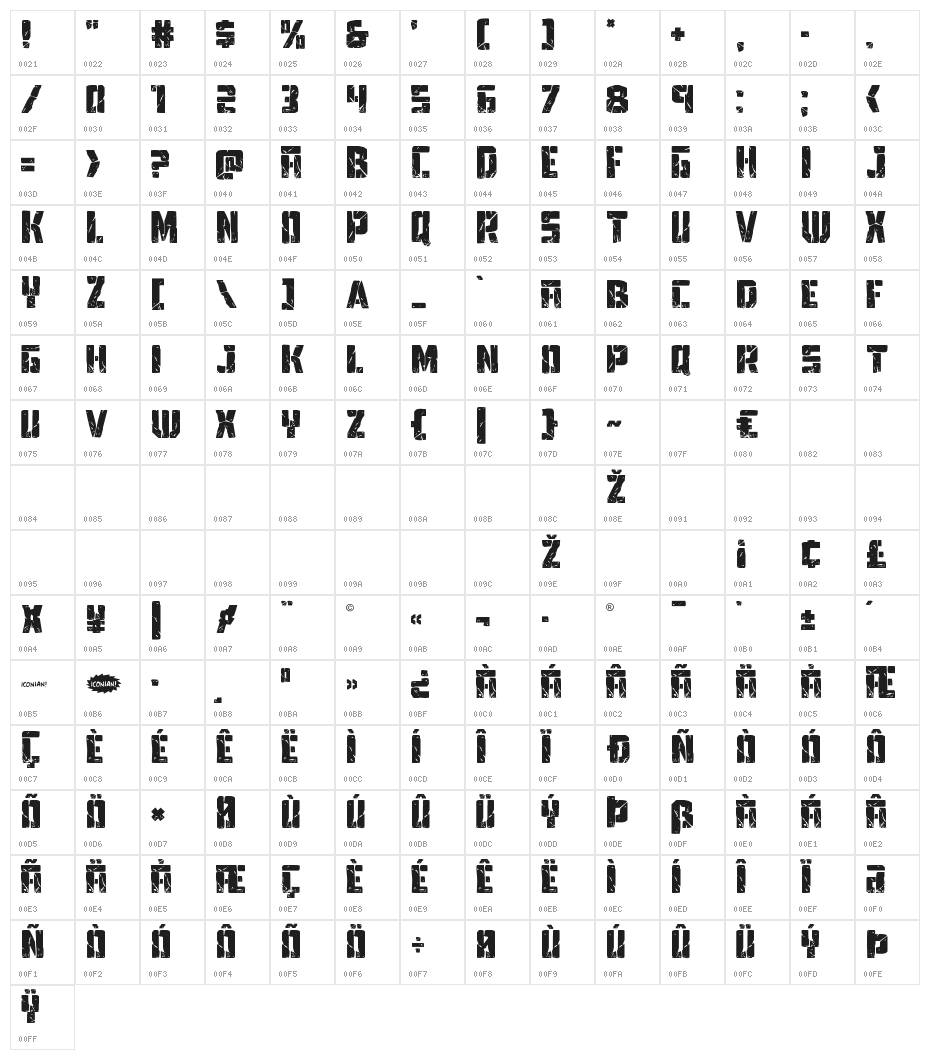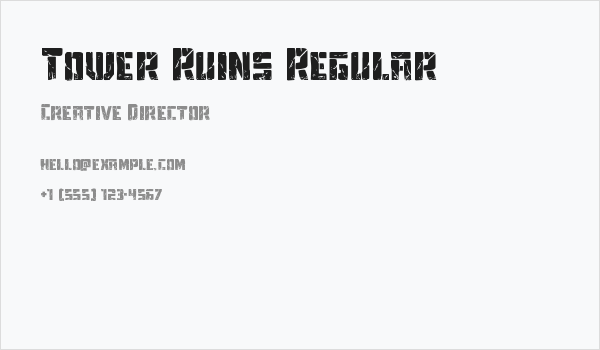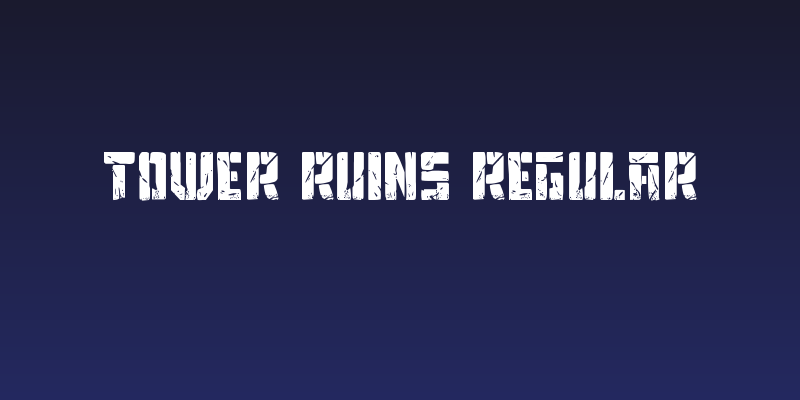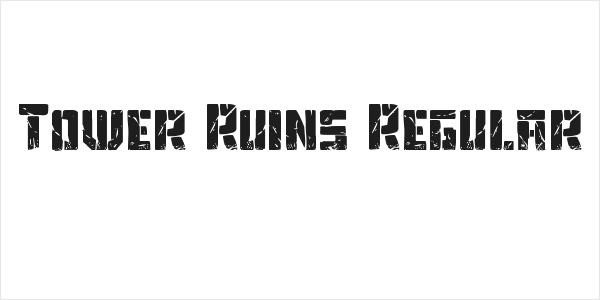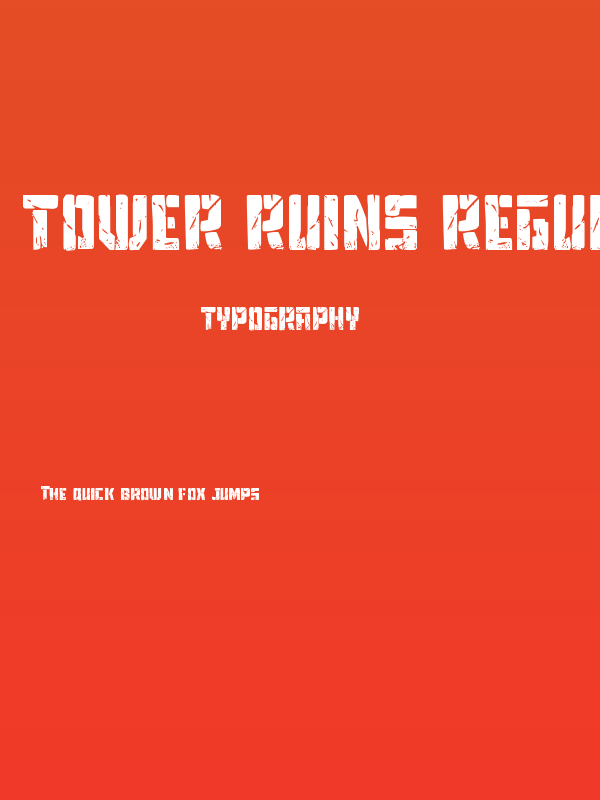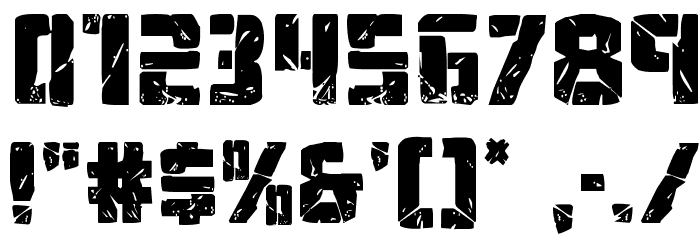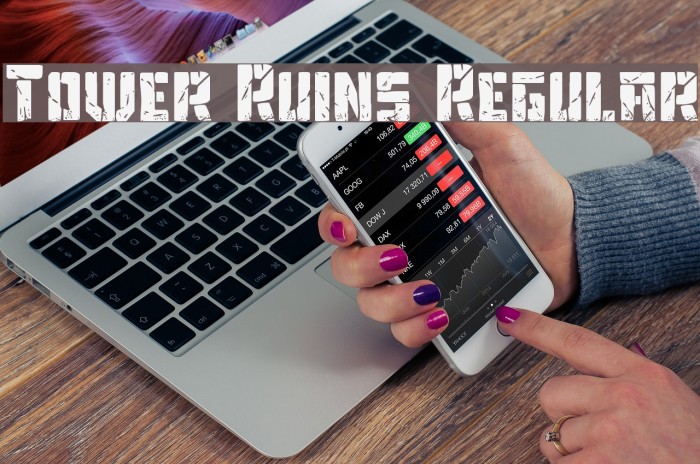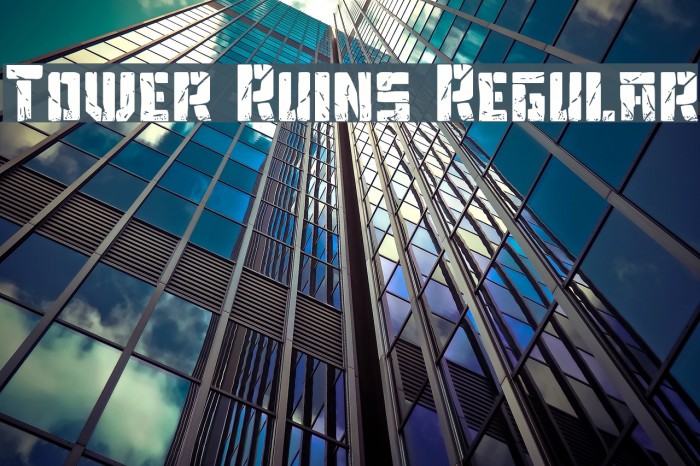
Tower Ruins Regular Font
Tower Ruins Regular Description
This font features a bold, distressed style with a rugged, textured appearance. The characters are blocky and robust, with a design that mimics the look of weathered stone or concrete. Each letter and number is marked by irregular, jagged edges and a rough surface, giving it an urban, gritty feel. The font is highly decorative and stands out with its unique, worn-out aesthetic. The uppercase and lowercase letters maintain a consistent style, while the numerals and special characters follow the same distressed pattern, making it suitable for designs that require a strong, impactful visual statement.
| Proposed Projects | Ideal for urban-themed posters, album covers, video game graphics, and branding that requires a strong, gritty aesthetic. |